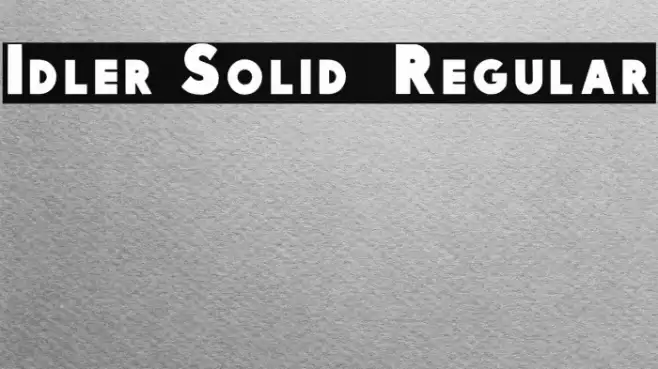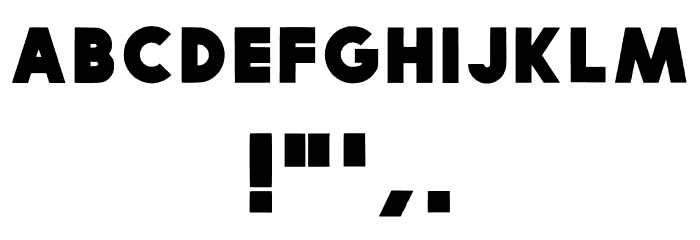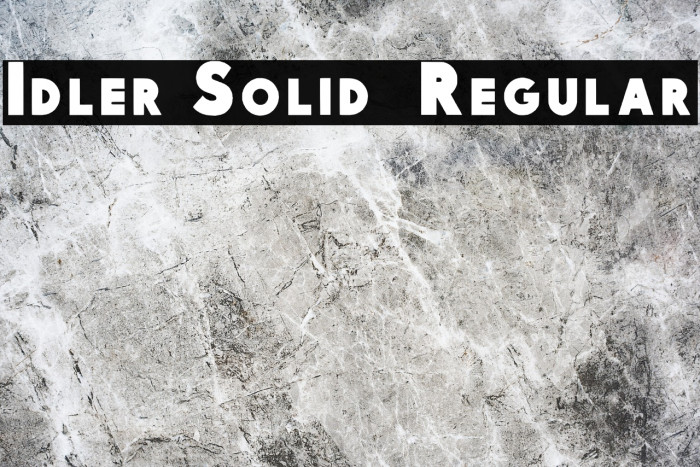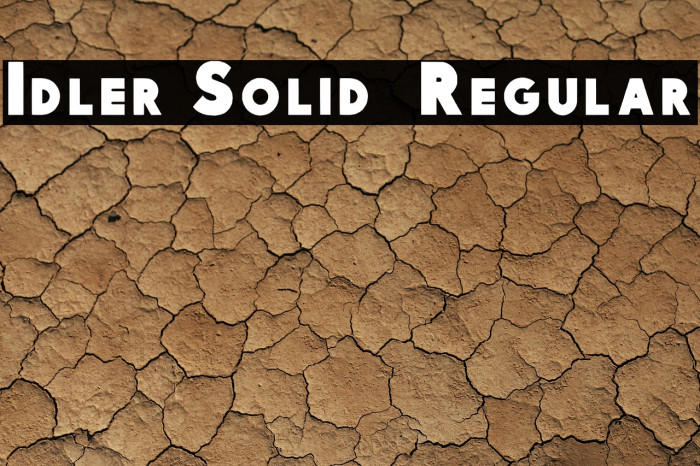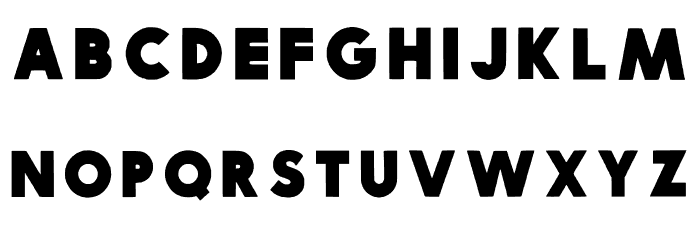
Idler Solid 15 Regular Font
Idler Solid 15 Regular Description
This font features bold, solid characters with a strong presence, making it ideal for impactful designs. The uppercase letters are uniformly designed with a geometric style, emphasizing clean lines and sharp angles. The characters are evenly spaced, providing a balanced and cohesive look. The font's boldness and simplicity make it suitable for modern and contemporary projects. It lacks any decorative elements, focusing instead on clarity and readability. The uniform thickness of the strokes ensures a consistent appearance across all characters, enhancing its suitability for headlines and titles. The font's robust design makes it versatile for various applications, from branding to advertising.
A bold, geometric font with clean lines and strong presence, ideal for modern designs from Basic fonts.
- Font: Idler Solid 15 Regular
- Proposed Projects: Ideal for branding, advertising, headlines, posters, and any project requiring a bold statement.